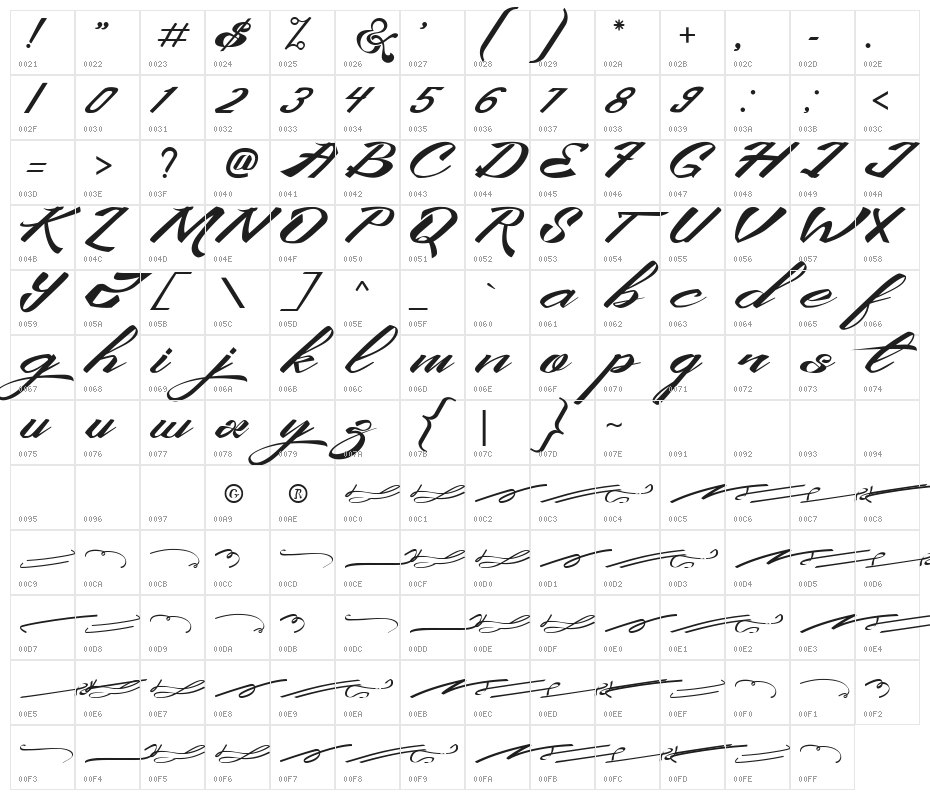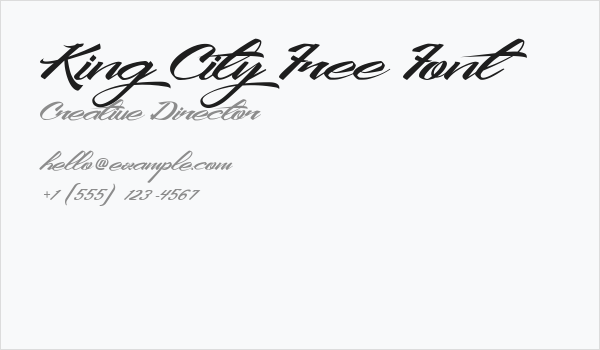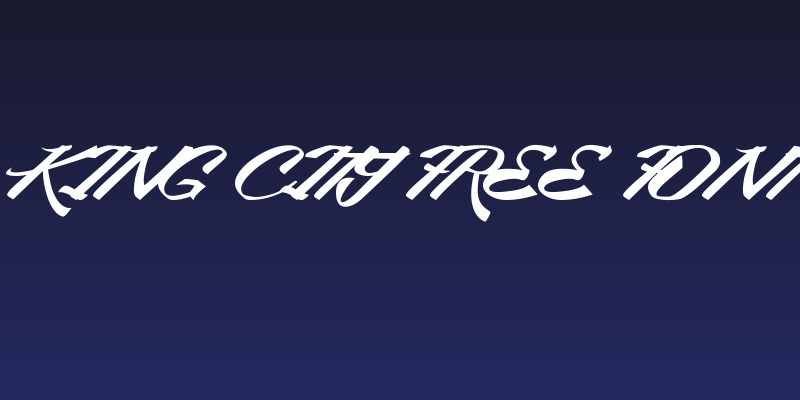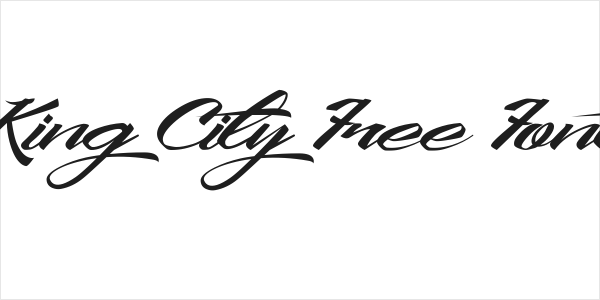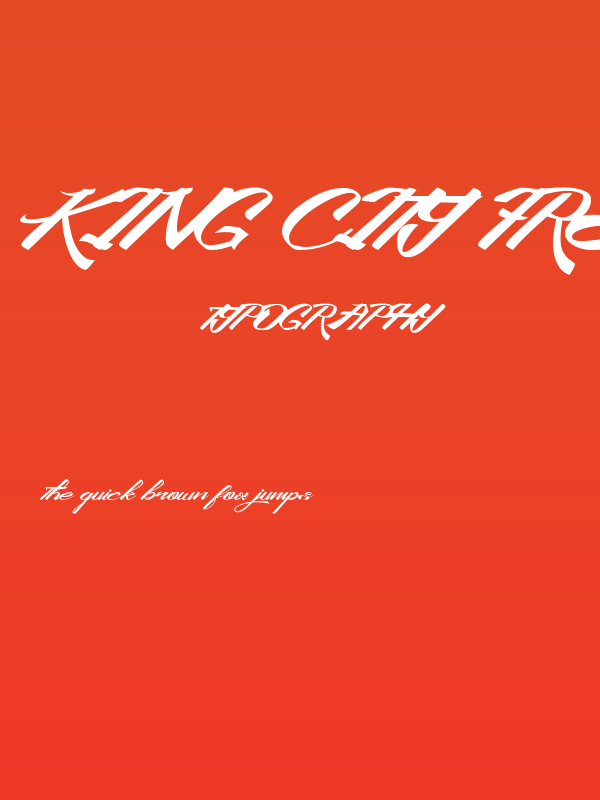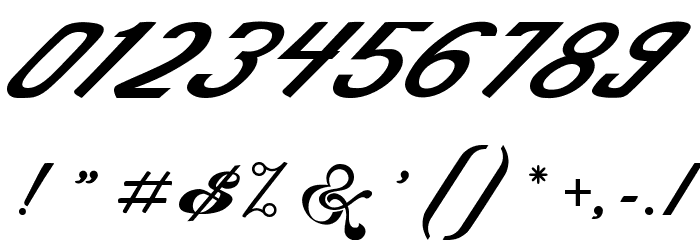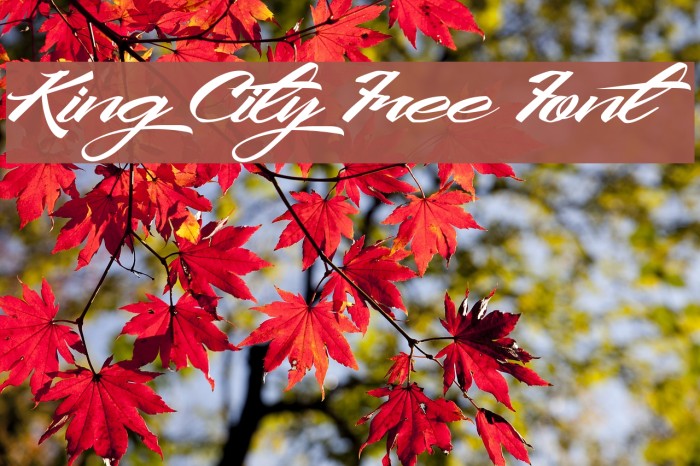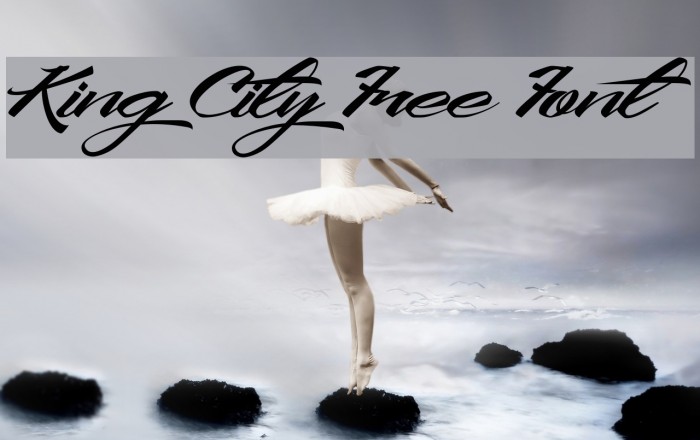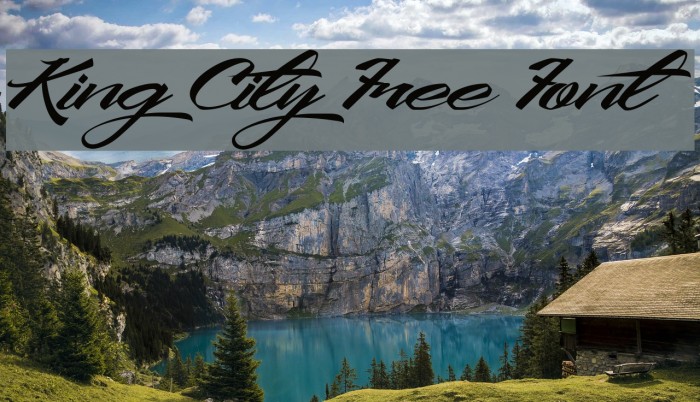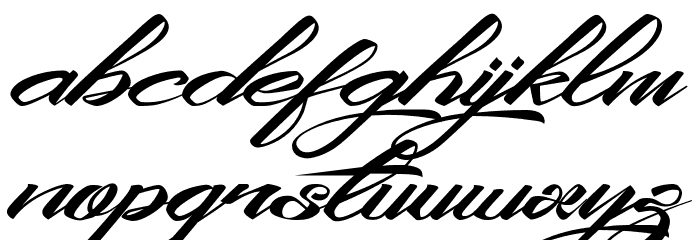
King City Free Font Font
King City Free Font Description
This font features an elegant and dynamic script style, characterized by its flowing, cursive letterforms. The uppercase letters exhibit a bold and striking presence with sweeping lines and sharp angles, while the lowercase letters maintain a graceful continuity with intricate loops and curves. The numerals are consistent with the overall style, offering a harmonious blend of readability and decorative flair. Special characters are thoughtfully integrated, maintaining the font's cohesive aesthetic. The design is reminiscent of traditional calligraphy, yet it carries a modern twist, making it suitable for a variety of creative applications.
| Overall Style | Modern, Decorative |
| Use Case | Logos, Headlines, Invitations |
| Proposed Projects | Ideal for wedding invitations, luxury branding, elegant packaging, and artistic posters. |